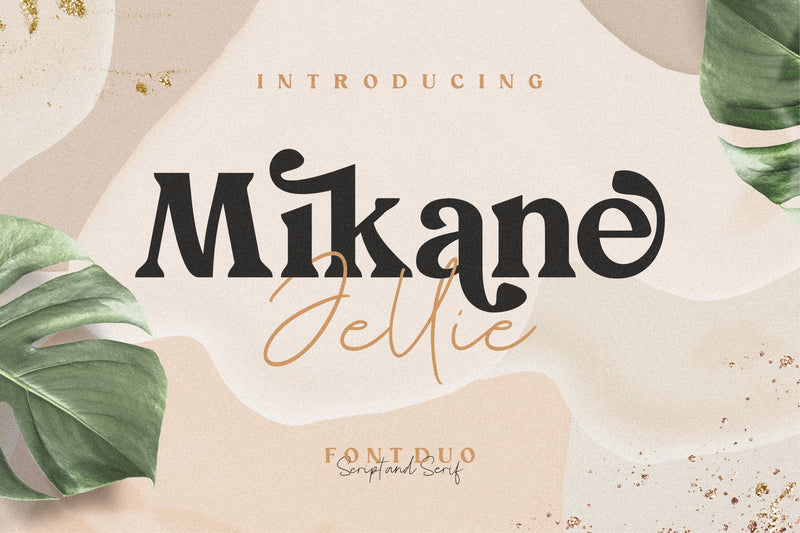
Mikane Jellie Handwritten Font Duo
Introducing by Paily Studio!
Mikane Jellie is a Handwritten Font Duo.
Mikane Jellie can be used for wide ranges of application, such as wedding design, branding project, logo, poster, name card, invitations, social media posts, and others.
Mikane Jellie was built with OpenType features and includes ligatures and alternates.